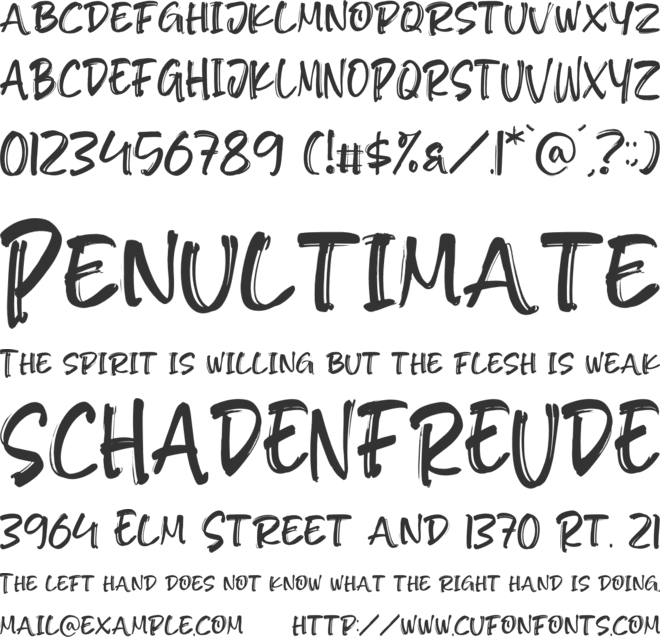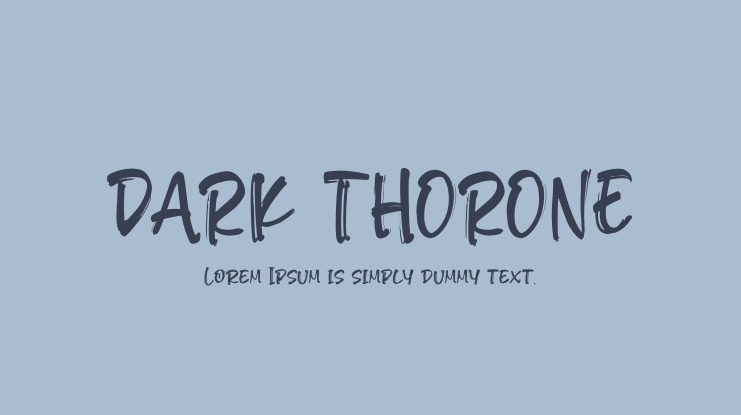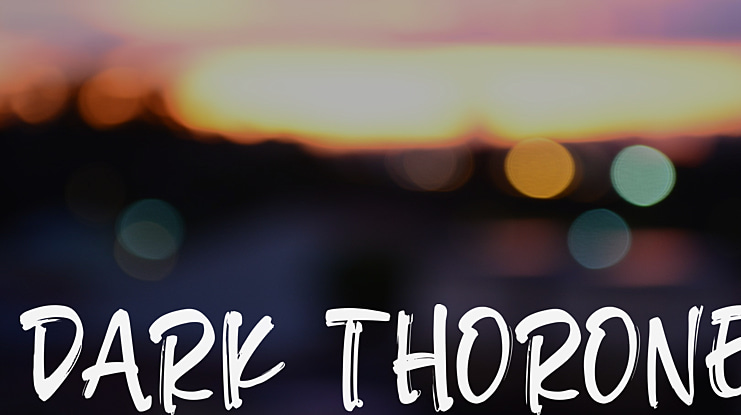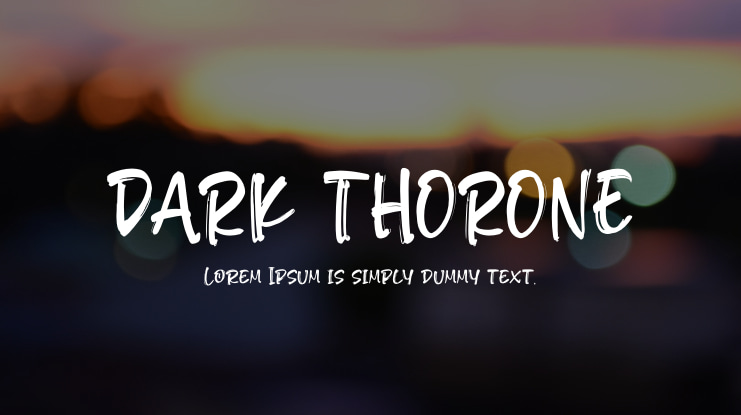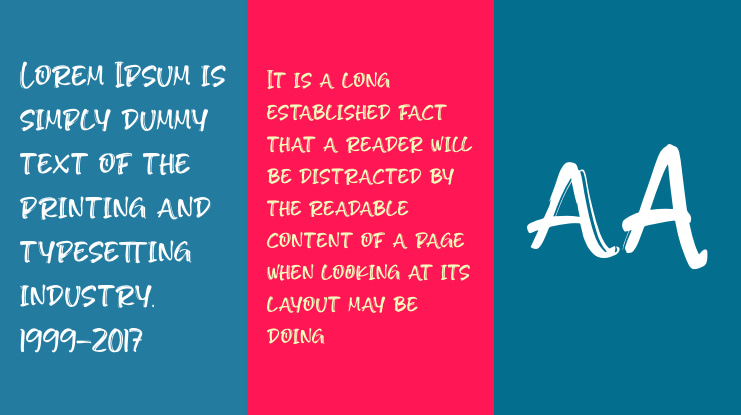
This is a modern Brush font, suitable for any projects such as: logos, branding projects, homeware designs, product packaging, mugs, quotes, posters, shopping bags, t-shirts, book covers, name card, invitation cards, greeting cards, label, photography, watermark, special events, and all your other lovely projects that need a beautiful script taste.